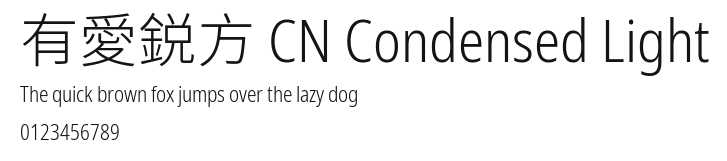
• Font Name: 有愛鋭方 CN Condensed Light
• Font ID: Nowar C² CN Condensed Light 0.2.1
• Full Font Name: 有愛鋭方 CN Condensed Light
• Version: 0.2.1
• PostScript Name: Nowar-C&C-CN-Condensed-Light
• Character Count: 47073
• Designer: Cyano Hao (character set definition, autohinting & modification for World of Warcraft); Monotype Design Team (Latin, Greek & Cyrillic); Ryoko NISHIZUKA 西塚涼子 (kana, bopomofo & ideographs); Sandoll Communications 산돌커뮤니케이션, Soo-young JANG 장수영 & Joo-yeon KANG 강주연 (hangul elements, letters & syllables); Dr. Ken Lunde (project architect, glyph set definition & overall production); Masataka HATTORI 服部正貴 (production & ideograph elements)
• Manufacturer: Nowar Typeface
About 有愛鋭方 CN Condensed Light.ttf
有愛鋭方 CN Condensed Light.ttf is a modern, elegant sans-serif font designed for ultimate readability and visual harmony. Perfect for branding, headlines, web design, and print materials.